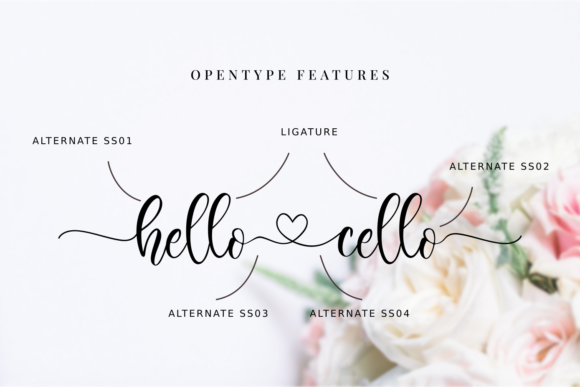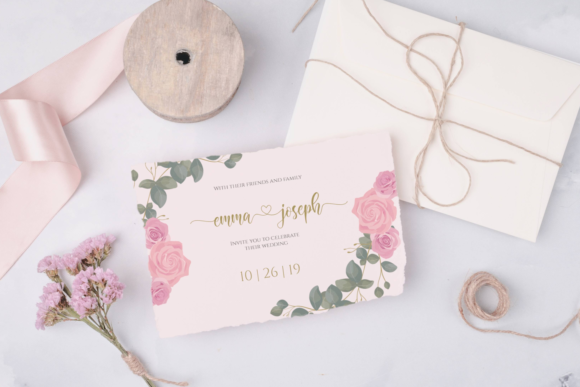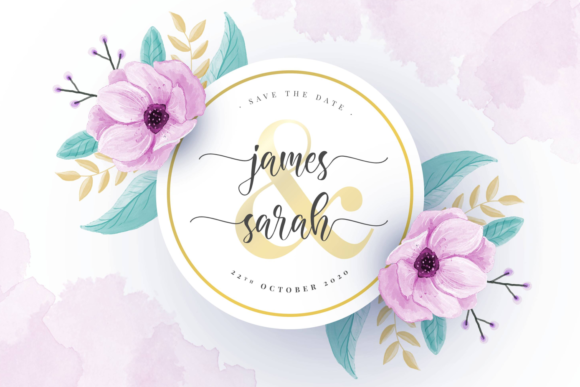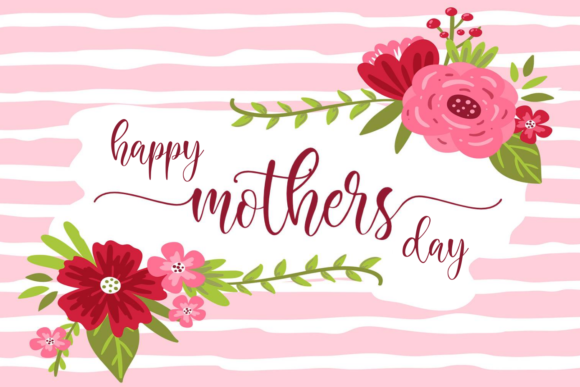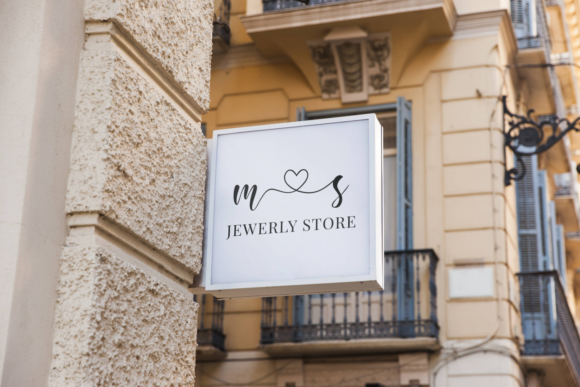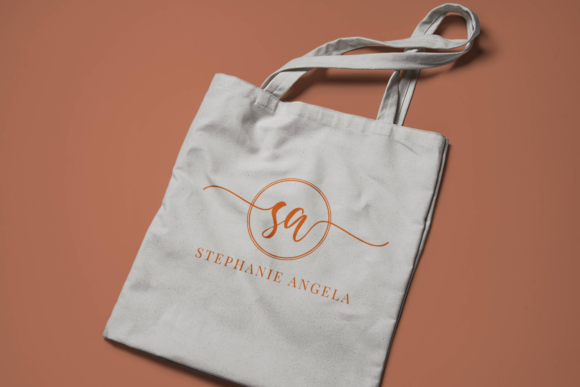
Hello Cello Font: The Perfect Handwritten Font for Your Creative Projects
Are you looking for a font that can add a touch of elegance and whimsy to your designs? Look no further than Hello Cello Font, a modern handwritten font that is sure to capture your heart. With its amazing heart-shaped swashes, Hello Cello is the perfect choice for designers and crafters who want to create beautiful and unique projects.
What is Hello Cello Font?
Hello Cello Font is a modern handwritten font that is designed to give your projects a personal and authentic feel. Its unique heart-shaped swashes add a touch of romance and whimsy, making it perfect for a variety of creative projects. Whether you’re designing wedding invitations, stationary art, social media posts, or greeting cards, Hello Cello Font is sure to make your designs stand out.
Features of Hello Cello Font
Hello Cello Font has several features that make it a great choice for designers and crafters. Some of its key features include:
- Handwritten style: Hello Cello Font has a beautiful handwritten style that gives your projects a personal and authentic feel.
- Heart-shaped swashes: The font’s heart-shaped swashes add a touch of romance and whimsy to your designs.
- Modern design: Hello Cello Font has a modern design that is sure to appeal to designers and crafters who want to create unique and stylish projects.
Uses of Hello Cello Font
Hello Cello Font is a versatile font that can be used for a variety of creative projects. Some of the most popular uses of the font include:
- Wedding invitations: Hello Cello Font is perfect for designing beautiful and elegant wedding invitations.
- Stationary art: The font can be used to create beautiful stationary art, including notecards, journals, and planners.
- Social media posts: Hello Cello Font can be used to create eye-catching social media posts that are sure to grab the attention of your followers.
- Greeting cards: The font is perfect for designing cute and personalized greeting cards for special occasions.
Benefits of Using Hello Cello Font
There are several benefits to using Hello Cello Font for your creative projects. Some of the most significant benefits include:
- Unique designs: Hello Cello Font allows you to create unique and stylish designs that are sure to stand out.
- Time-saving: Hello Cello Font can save you time and effort by providing you with a beautiful and stylish font that you can use for a variety of projects.
Tips for Using Hello Cello Font
Here are a few tips for using Hello Cello Font to get the most out of your designs:
- Experiment with different colors: Hello Cello Font looks great in a variety of colors, so don’t be afraid to experiment and find the perfect color for your design.
- Use it with other fonts: The font can be paired with other fonts to create a unique and stylish design.
- Pay attention to spacing: Make sure to pay attention to the spacing between letters and words to ensure that your design looks clean and professional.
Hello Cello Font is a beautiful and stylish handwritten font that is perfect for designers and crafters who want to create unique and stylish projects. With its amazing heart-shaped swashes and modern design, Hello Cello Font is sure to capture your heart. Whether you’re designing wedding invitations, stationary art, social media posts, or greeting cards, Hello Cello Font is the perfect choice. So why wait? Download Hello Cello Font today and start creating gorgeous designs that will leave a lasting impression.